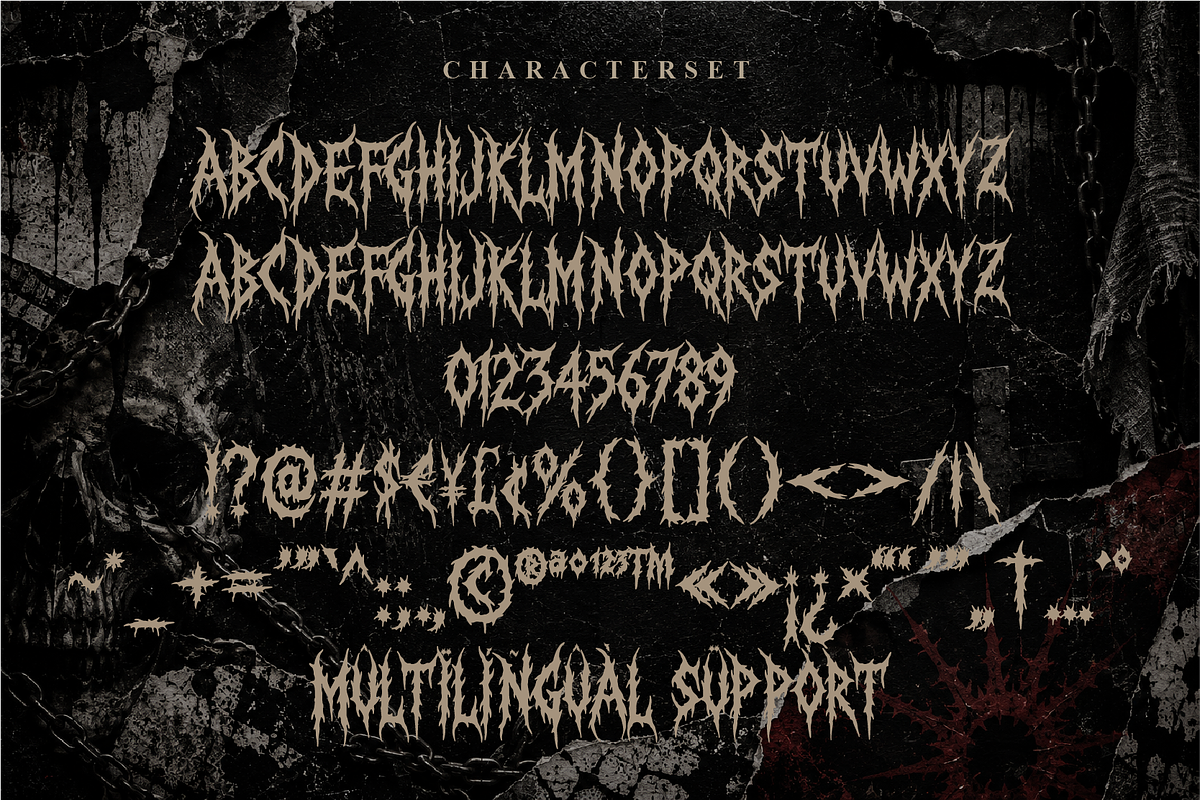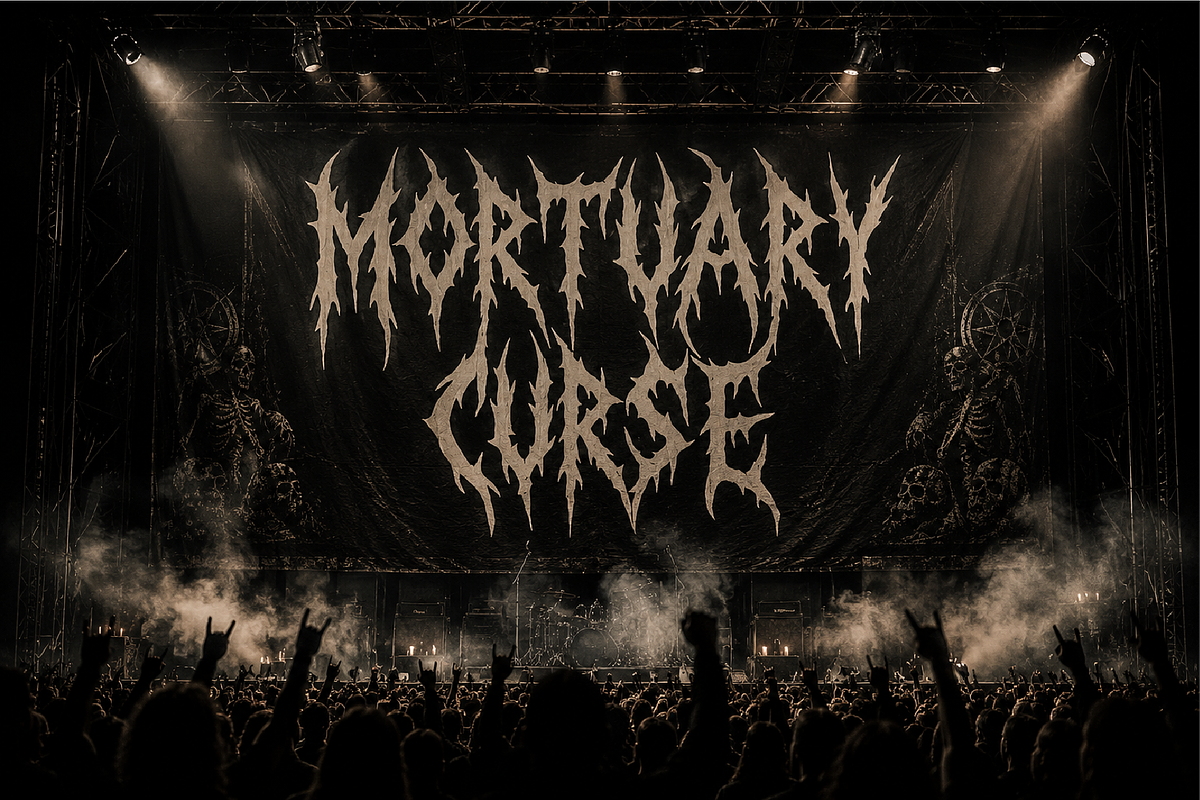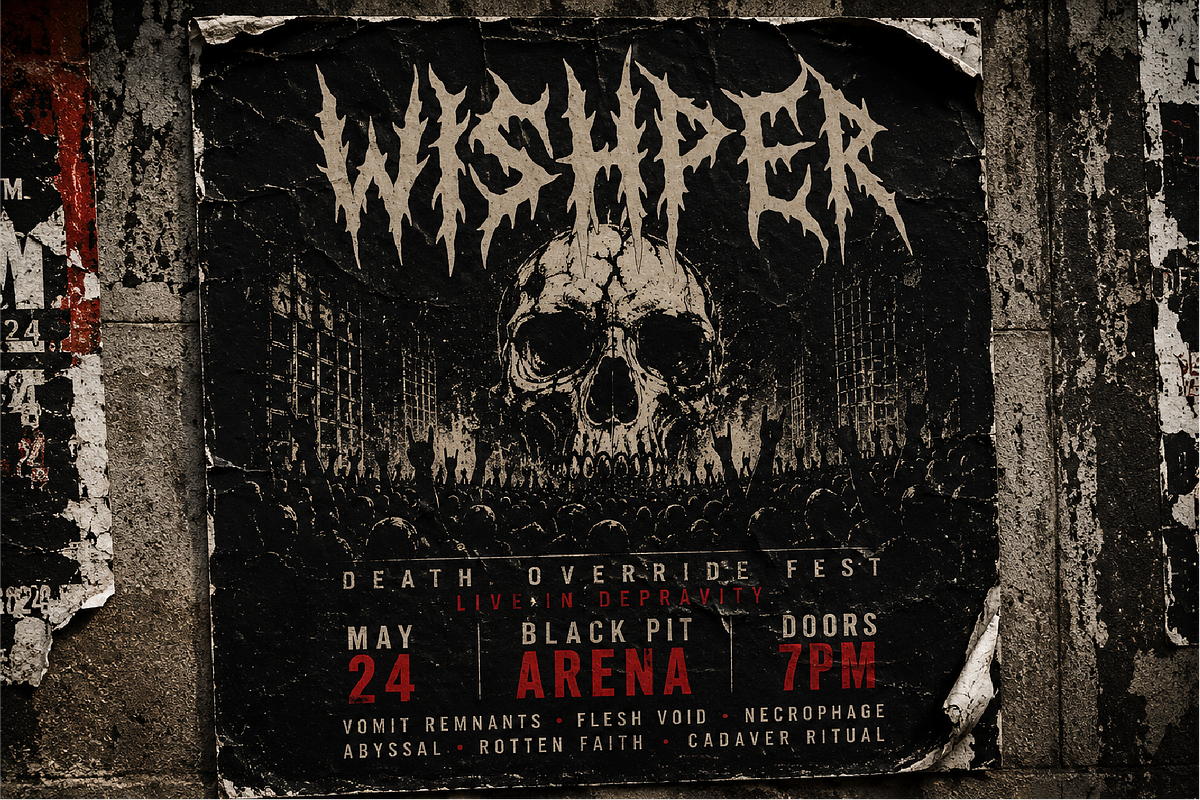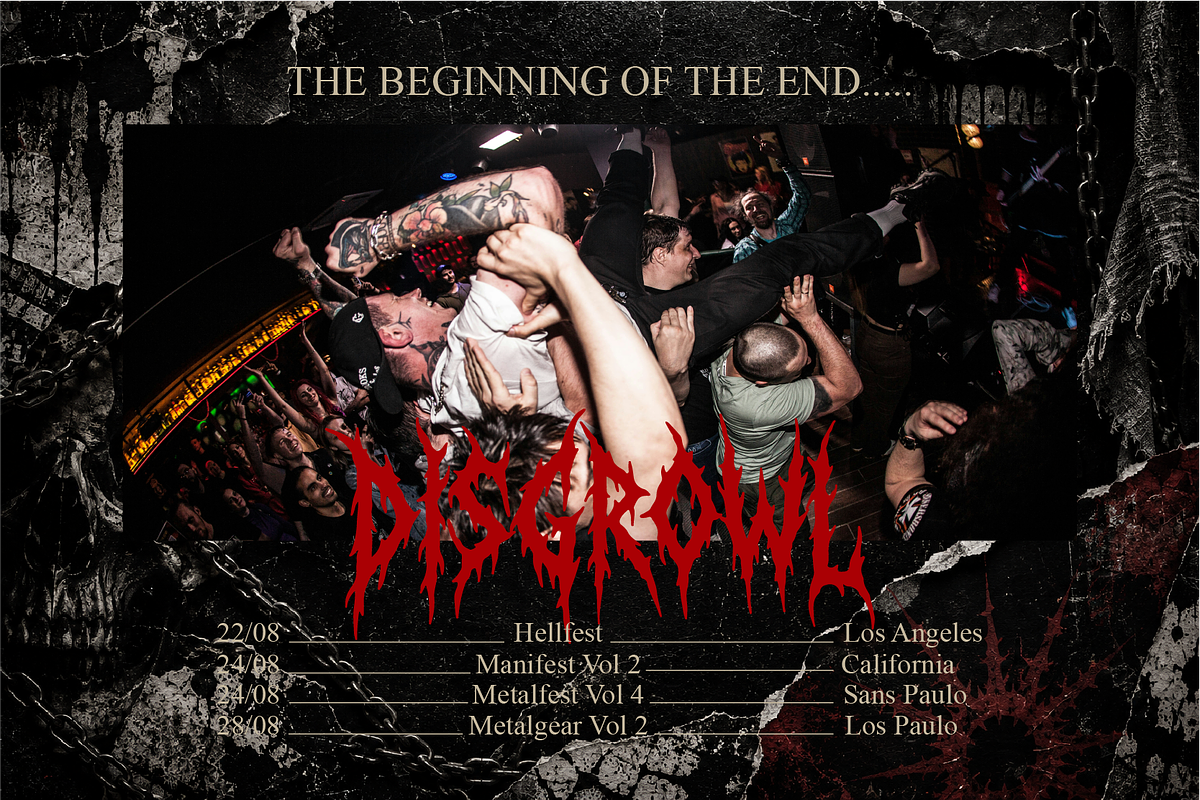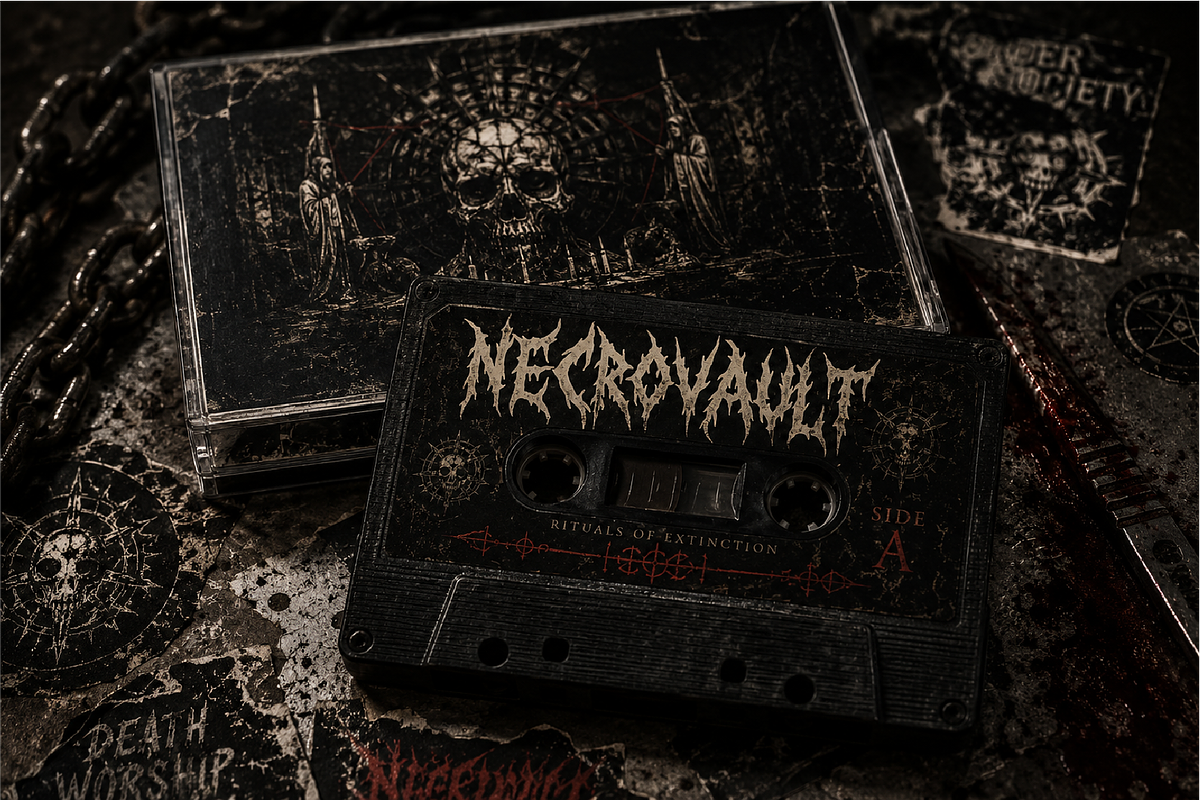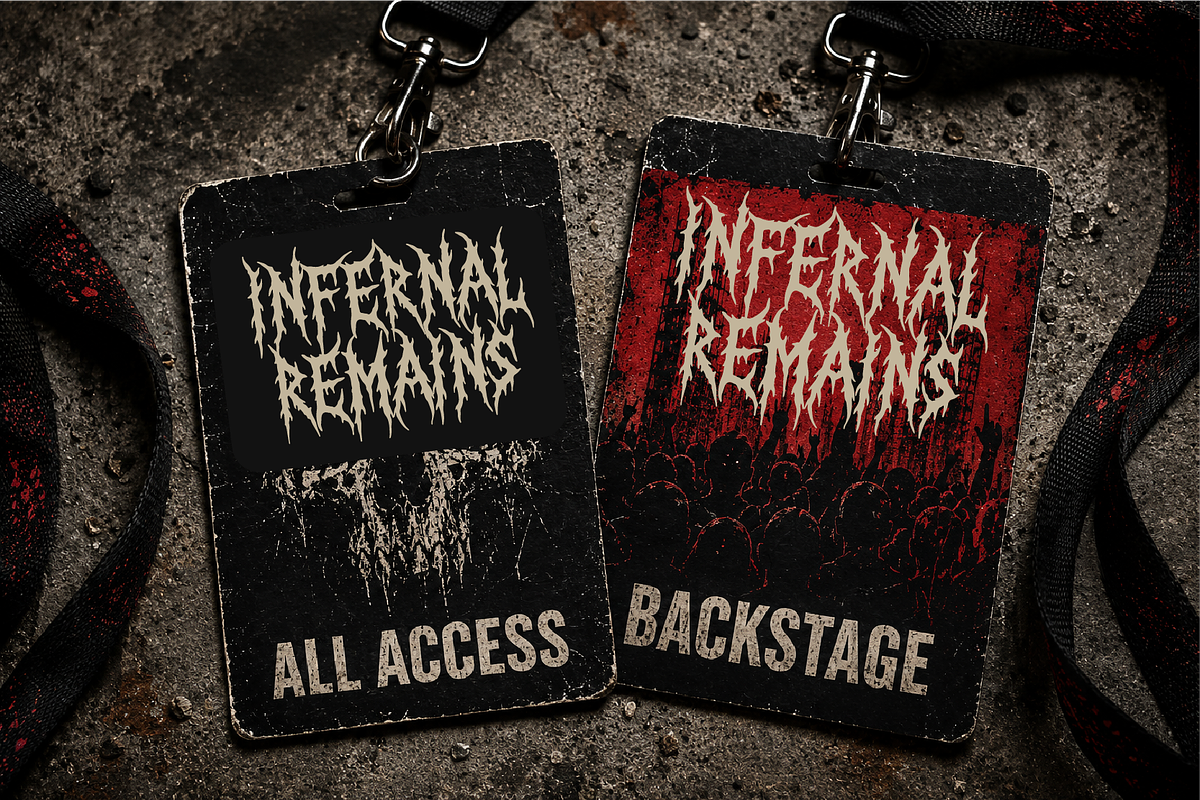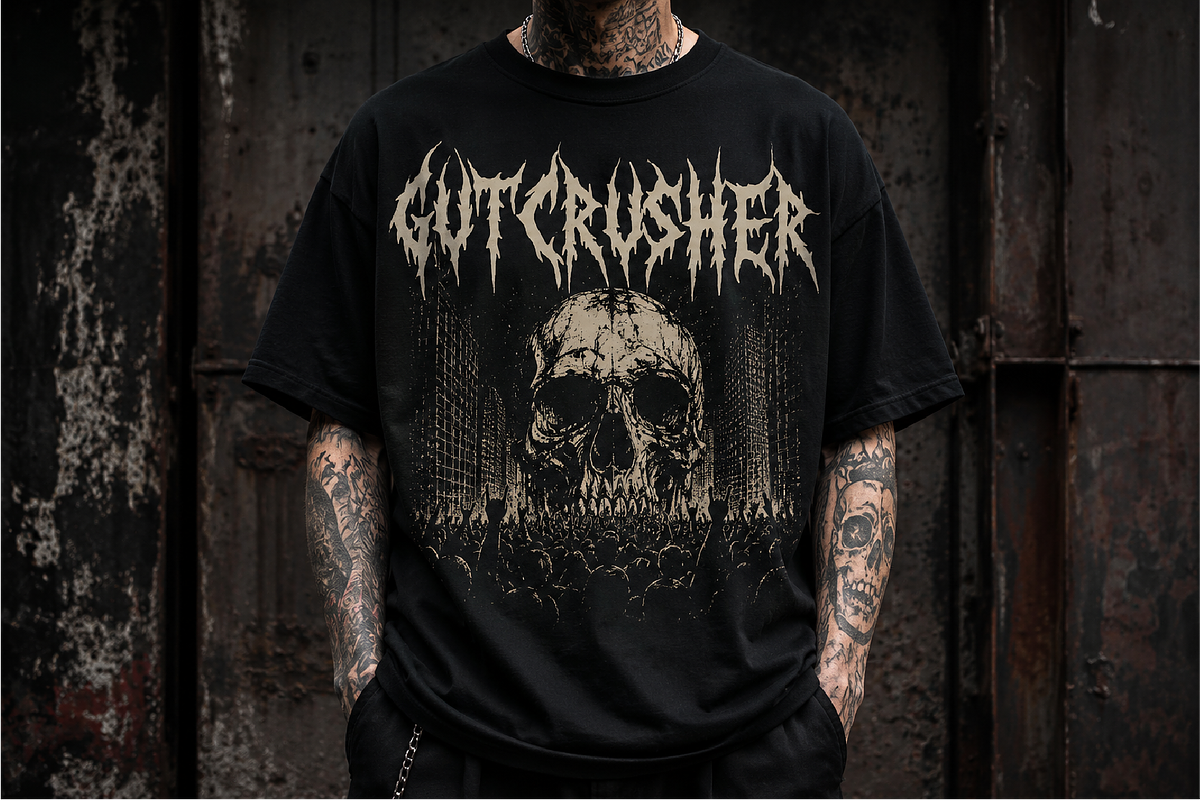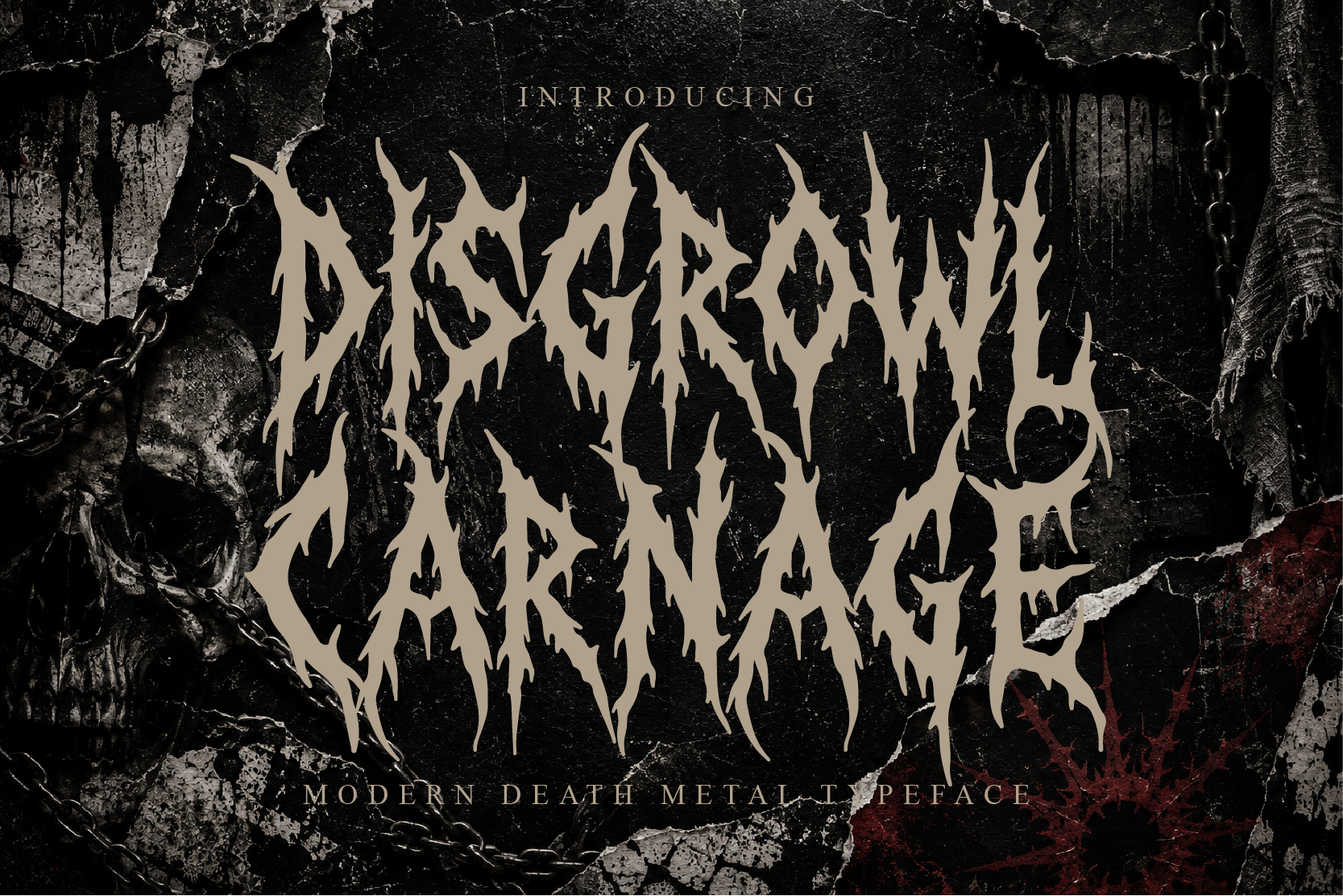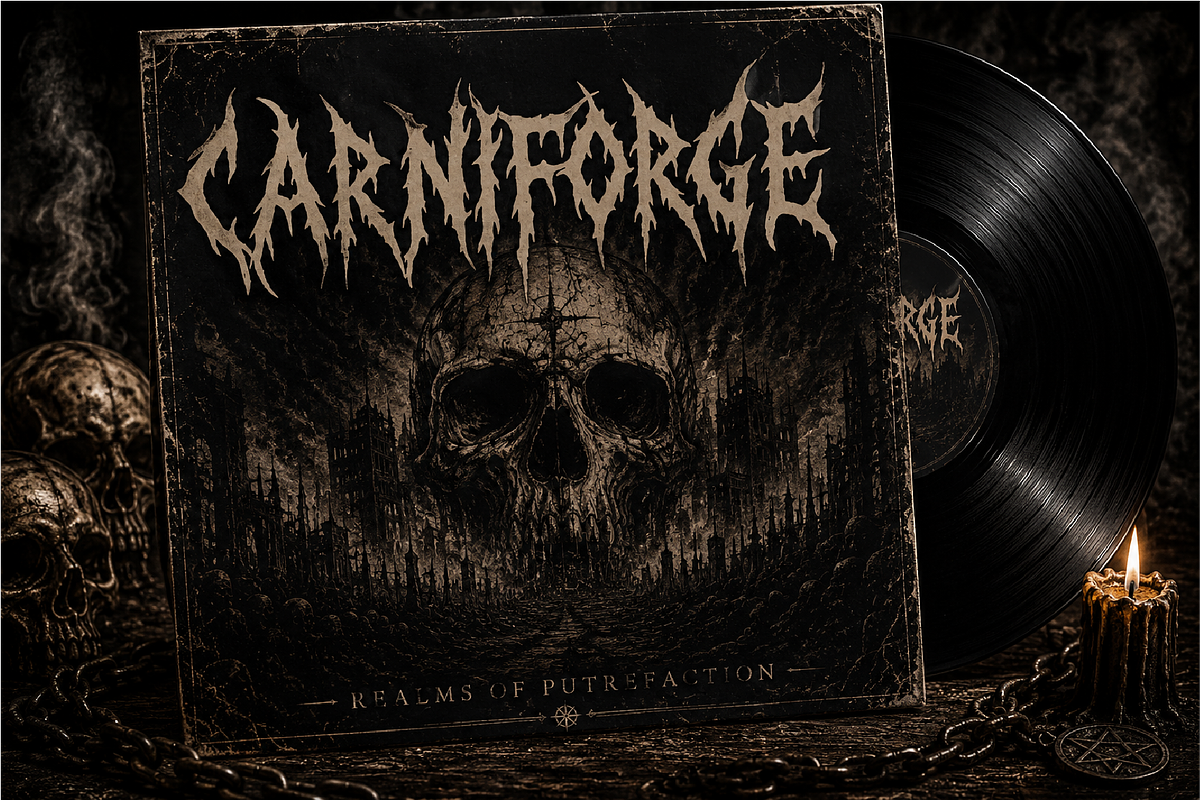
Disgrowl Carnage Death Metal Font
🎨 Introducing: Disgrowl Carnage – Brutal Death Metal Display Font
Disgrowl Carnage is a dark and aggressive display font inspired by extreme death metal aesthetics. Featuring sharp, chaotic, and hand-crafted letterforms, this typeface is designed to bring raw brutality and underground energy to your creative projects. Perfect for band logos, album covers, merchandise, posters, apparel branding, and any design that demands a fierce and uncompromising visual impact.
✨ Features
• Uppercase & lowercase
• Numbers & punctuation
• Multilingual support
🔥 Perfect For
Death metal logos, band merchandise, album covers, concert posters, apparel branding, stickers, social media, horror projects, extreme typography, and underground graphic designs.